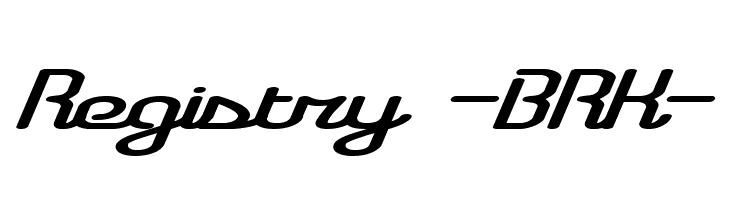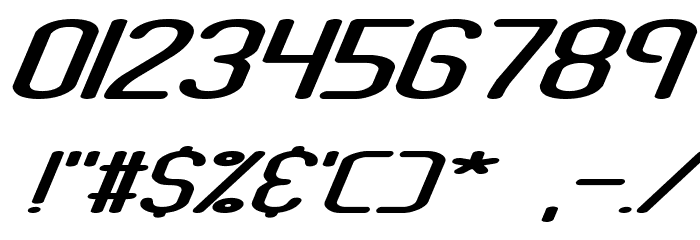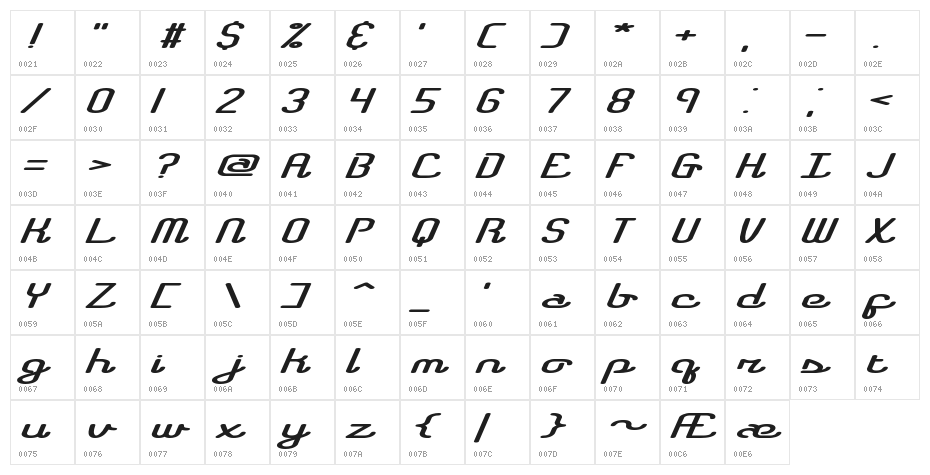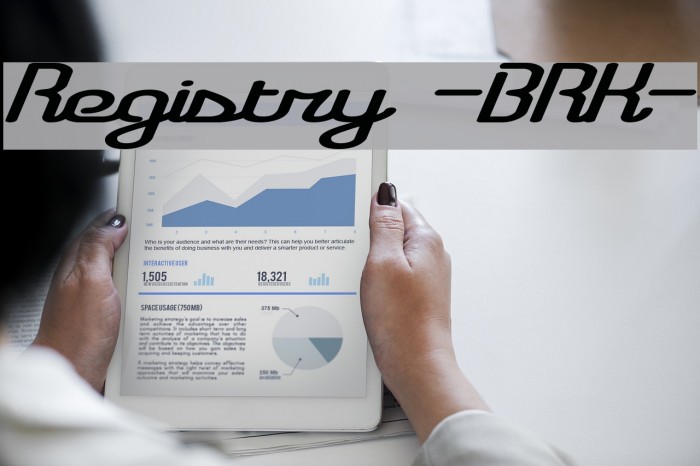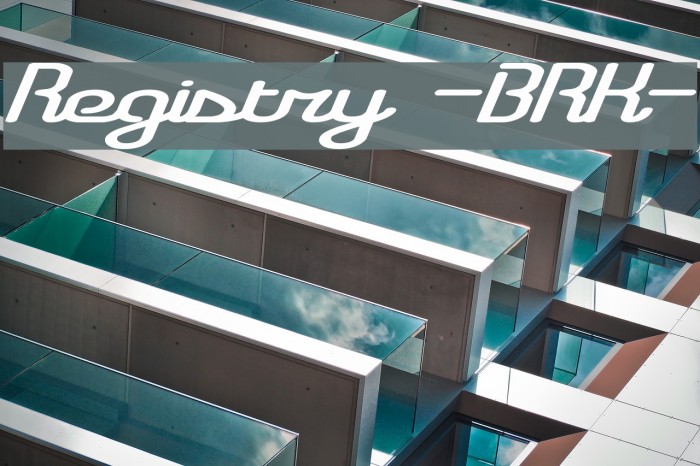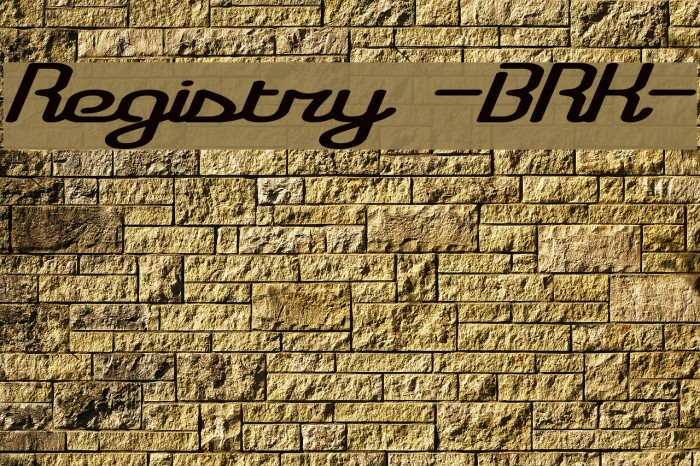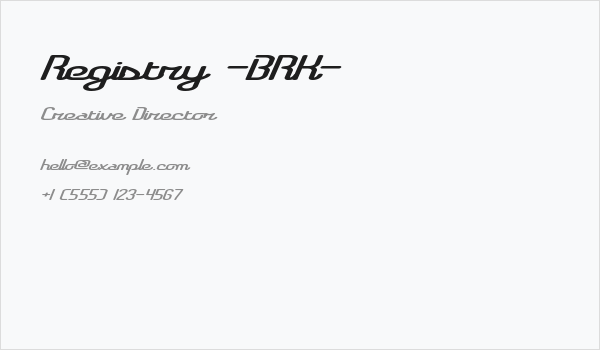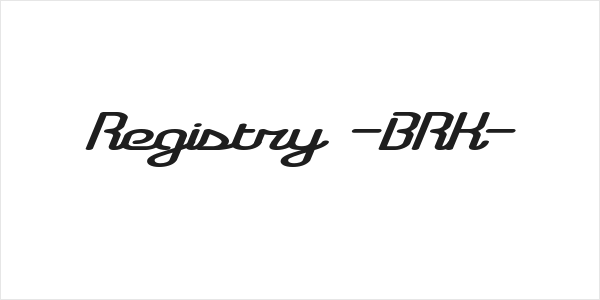
Registry -BRK- Font
Registry -BRK- Description
This font features a unique blend of script and sans-serif styles, characterized by its smooth, flowing lines and slightly slanted orientation. The uppercase letters are bold and connected, giving a sense of continuity and fluidity. The lowercase letters maintain a similar style, with rounded edges and consistent stroke width, enhancing readability. Numbers and special characters follow the same design principles, ensuring uniformity across all elements. The font's overall appearance is modern and dynamic, making it suitable for various creative applications.